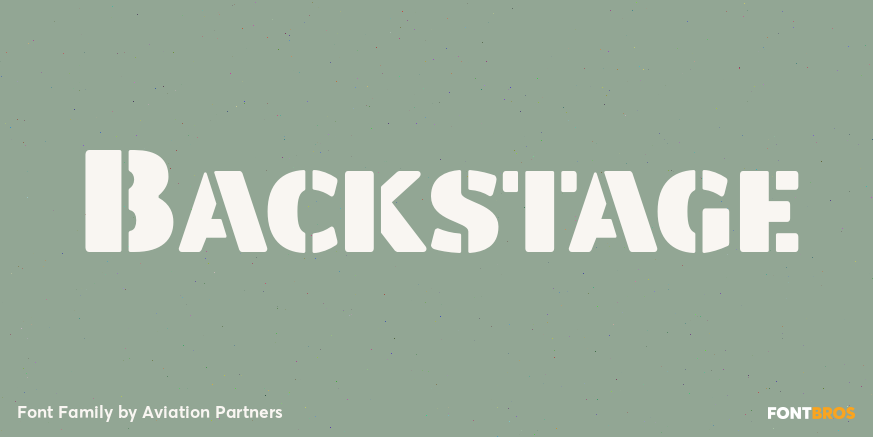
HomeFont BrosSpecial EffectBackstage Special EffectUrban Backstage FacebookXPinterestWhatsApp 1 of 1 About Backstage is a bold sans serif stencil with subtly rounded corners.  DOWNLOAD NOW People also explored Yoshinoya Font Barley Font Meity Font Blue Jeans Font Monocracy Vintage Monograms D Font Roasted Font Mythical Prince Font Dandelion Font Kanok Lf Font 306 0 TagsBackstage Font Previous articleTengo MaquinaNext articleDharma Gothic P LEAVE A REPLY Cancel reply Comment: Please enter your comment! Name:* Please enter your name here Email:* You have entered an incorrect email address! Please enter your email address here Website: Save my name, email, and website in this browser for the next time I comment. Personal Use Free Vanchrome Personal Use Free Read more about this font Hunters Personal Use Free Read more about this font The 10 Best Handwriting Fonts to Add Personality to Your Designs Blog Read more about this font DangeRNighT Font Personal Use Free Read more about this font BLOG How to Install and Use Fonts on Windows, macOS, and Web Projects How to Install and Use Fonts on Windows, macOS, and Web Projects Fonts are a crucial part of design and branding. Whether you’re designing a... Transform Your Website: Elevate Your Typography with 7 Best Web Font Generators Free Fonts Risk: Why Free Fonts Can Be Dangerous for Designers Best Fonts for T-Shirt Design – Top 2025 Picks